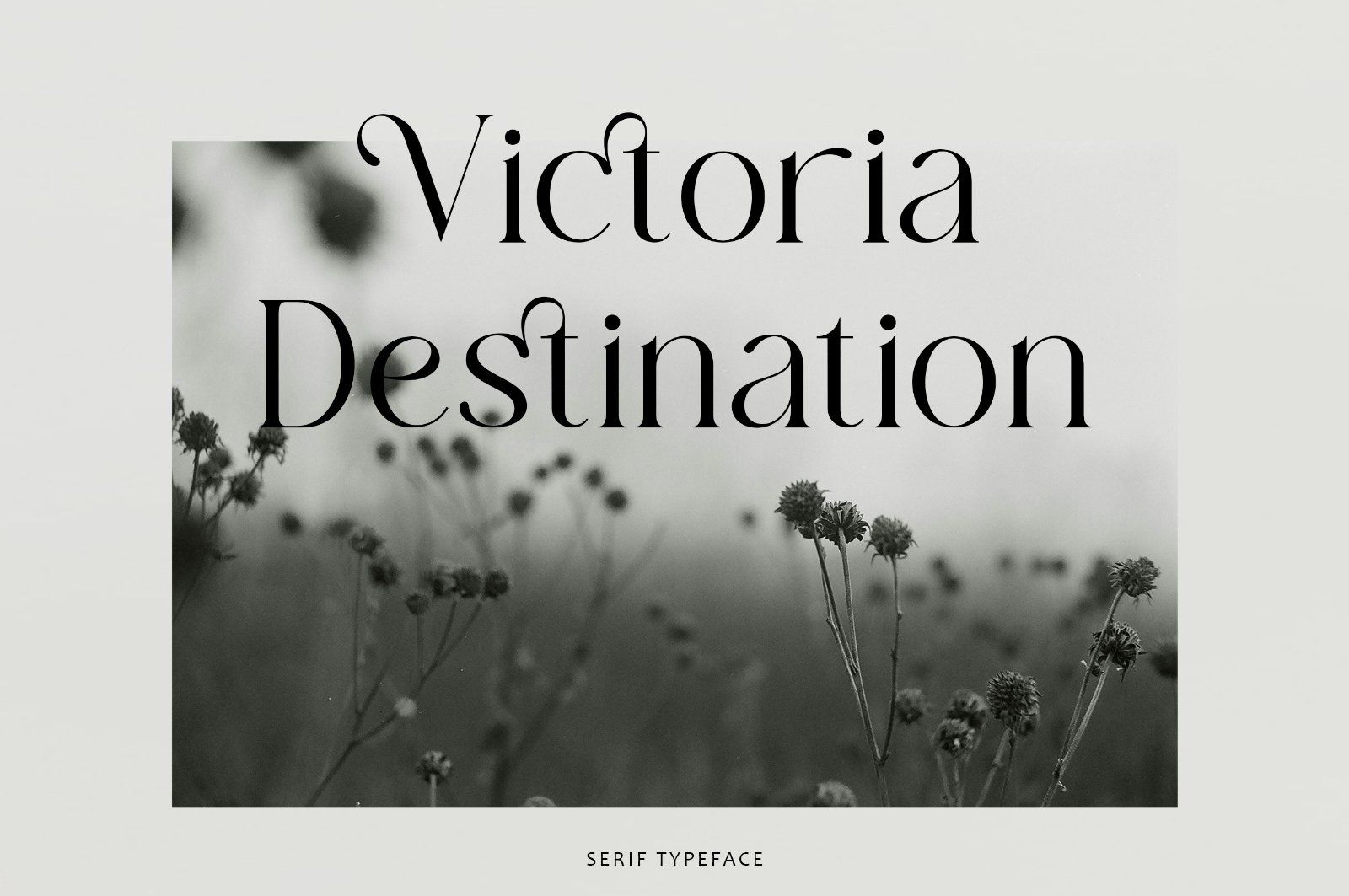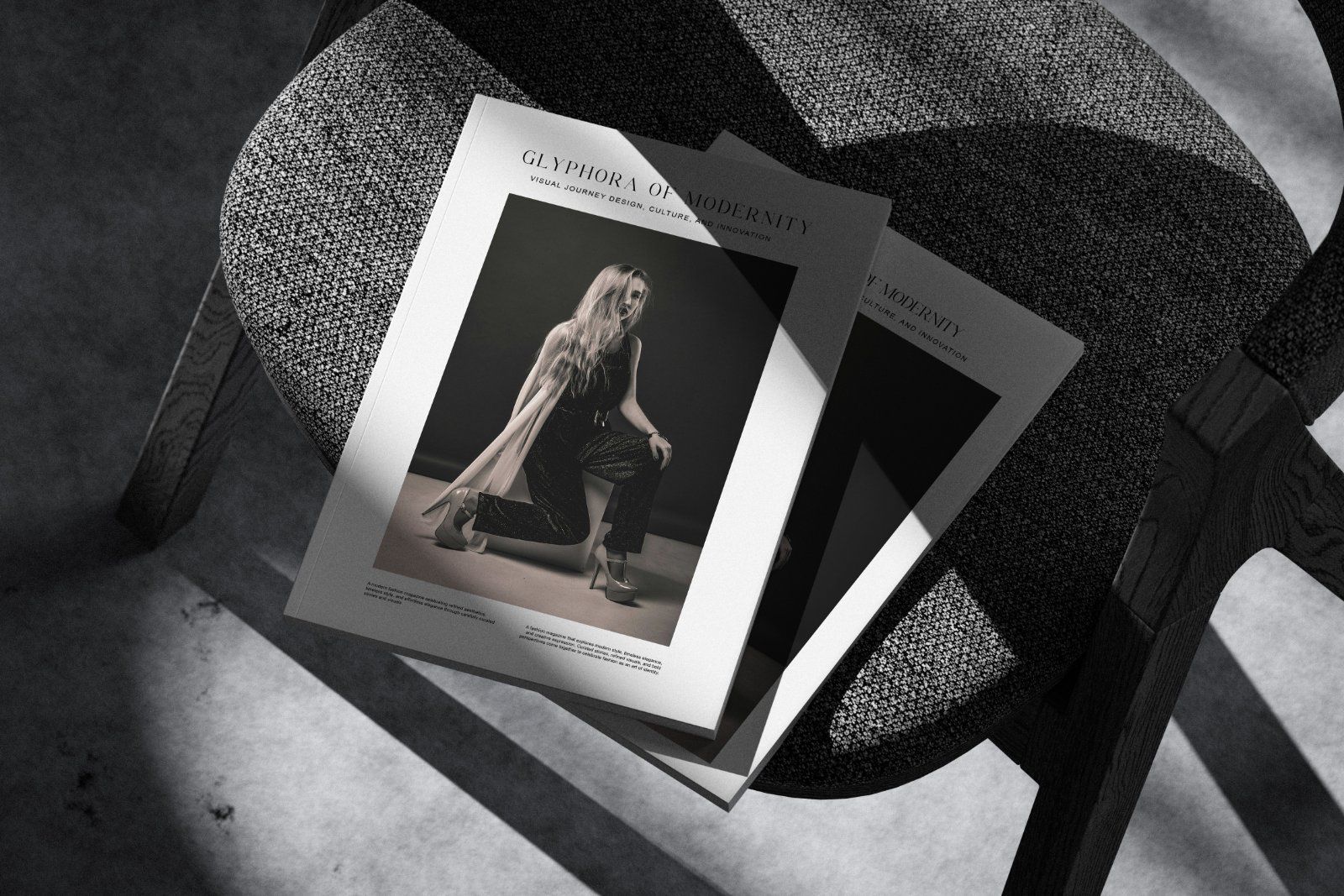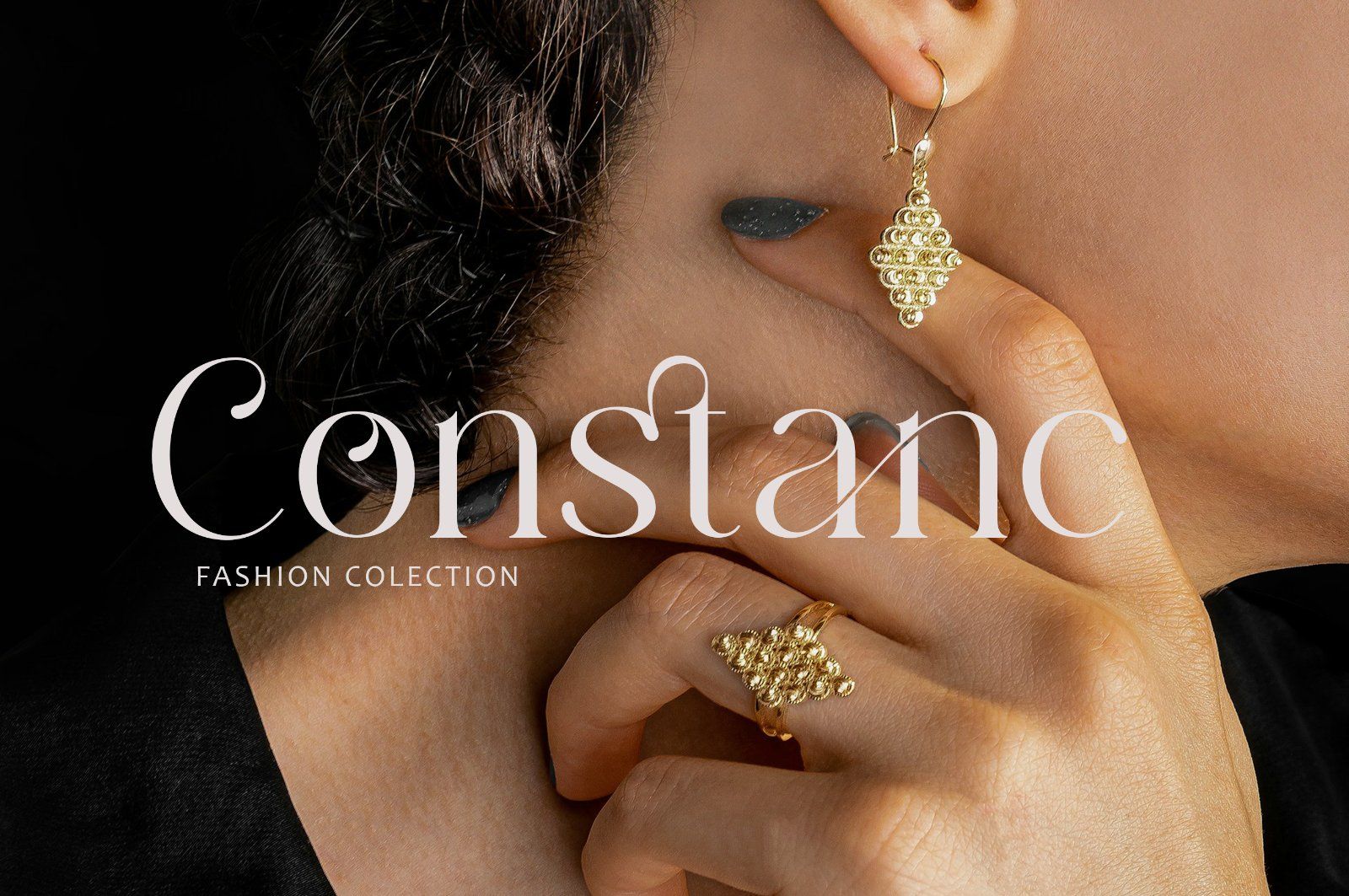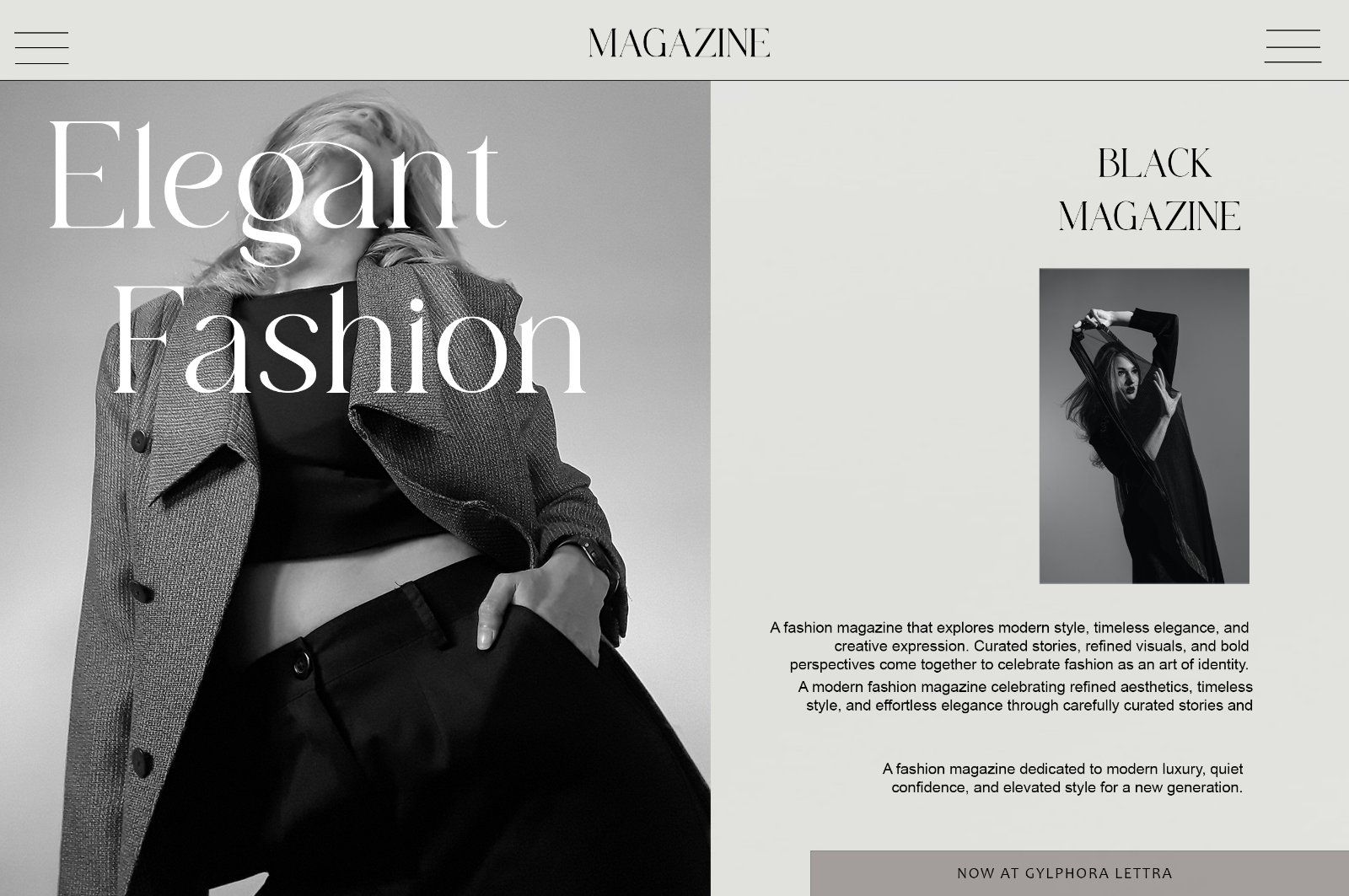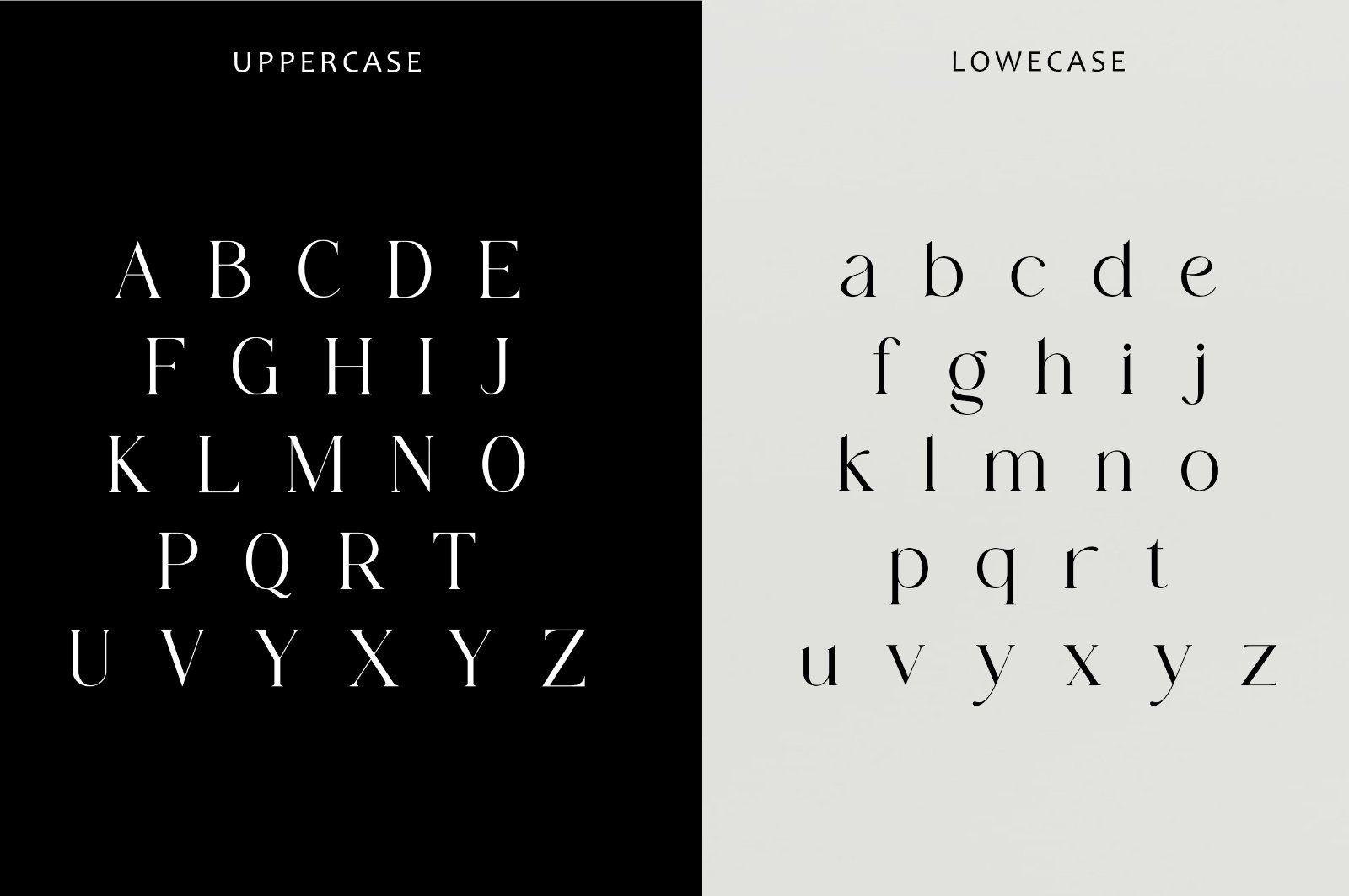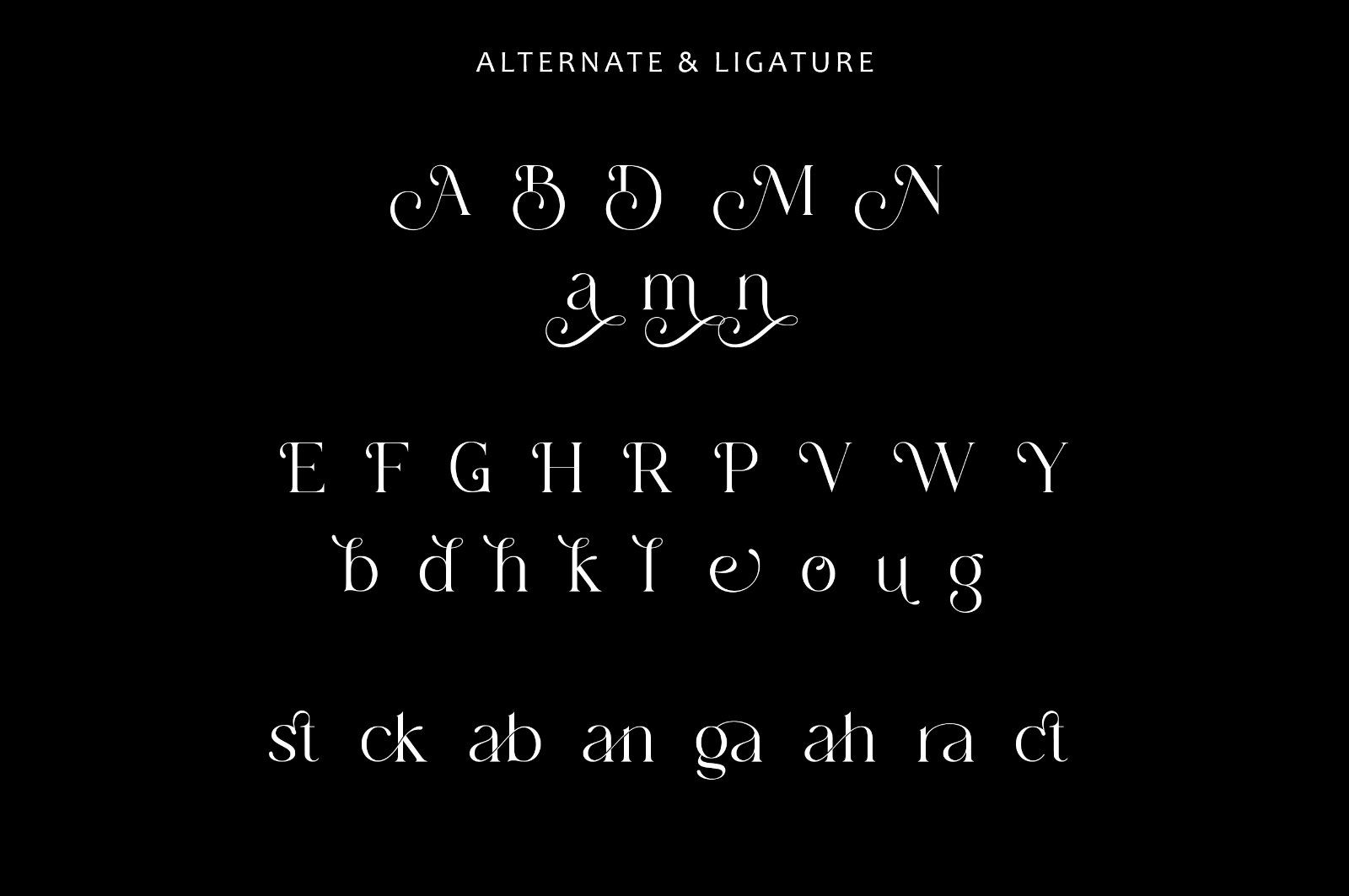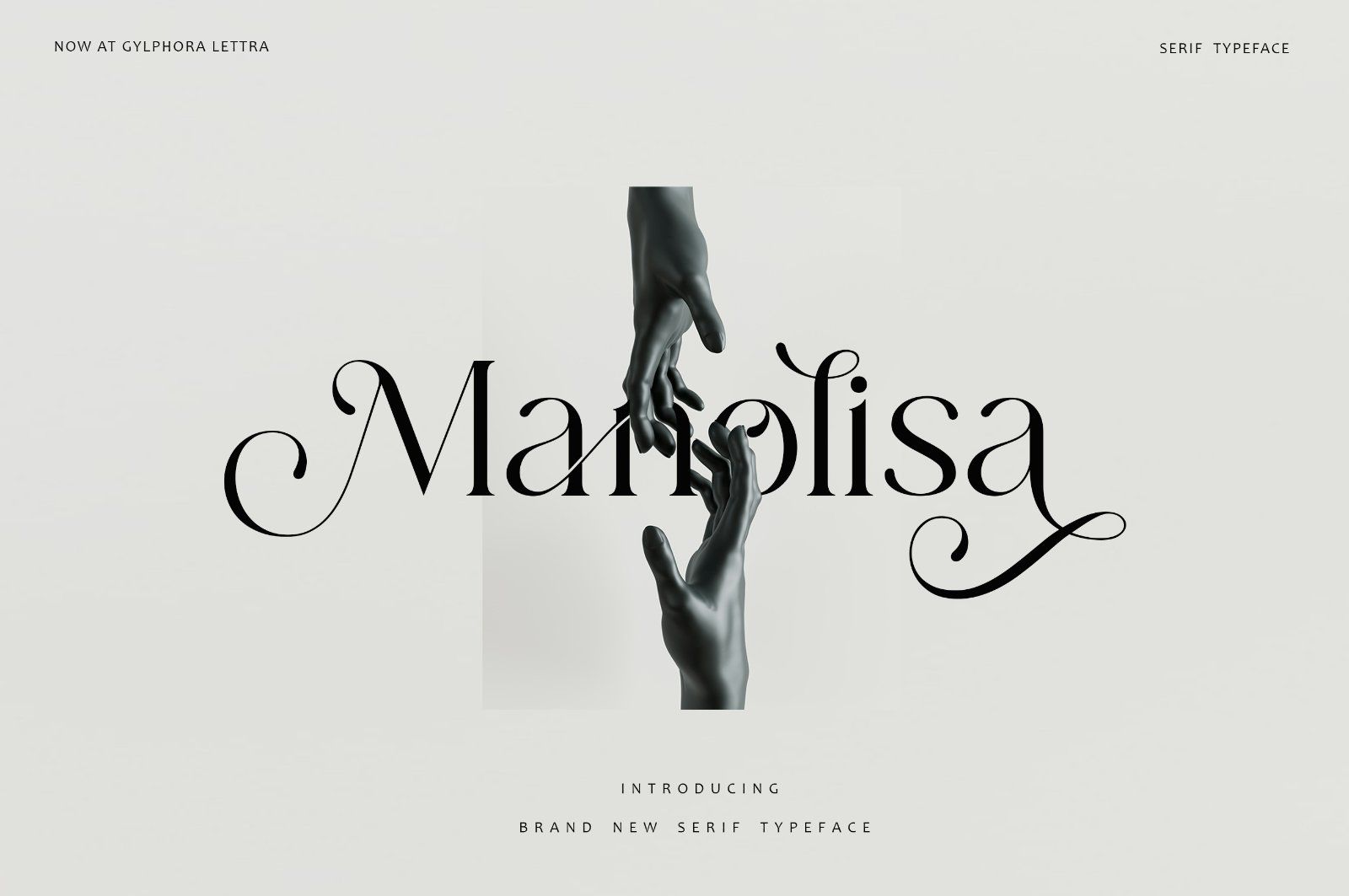
Marolisa is a modern serif typeface crafted to embody elegance, artistic expression, and timeless sophistication. Blending graceful ornamental curves with confident serif structure, Marolisa delivers a luxurious visual presence while maintaining excellent readability. Every stroke is carefully shaped to create a harmonious balance between classic typography aesthetics and contemporary design sensibilities.
• Uppercase & lowercase letters
• Stylish alternates
Perfectly suited for:
• Branding & Visual Identity
• Editorial and Magazine Layouts
• Luxury Packaging & Logo Design
• Fashion, Beauty, and Creative Projects
• Headlines, Posters, and Display Typography